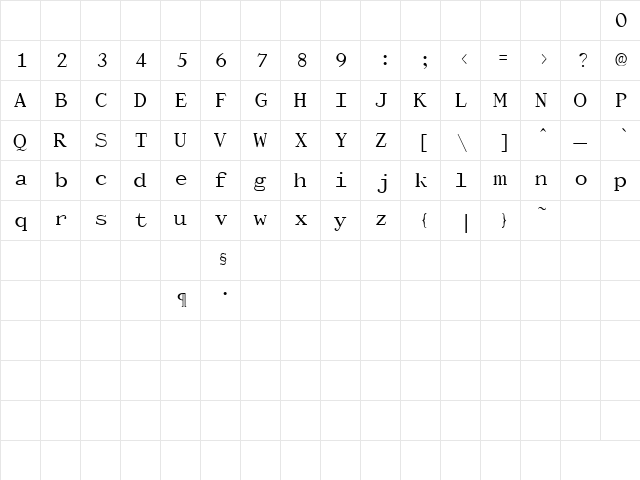
Dactylographe (Unregistered) Regular
Design Context for Dactylographe (Unregistered) Typeface
Dactylographe (Unregistered) is a composed and adaptable typeface that performs quietly and consistently across a wide range of design contexts.